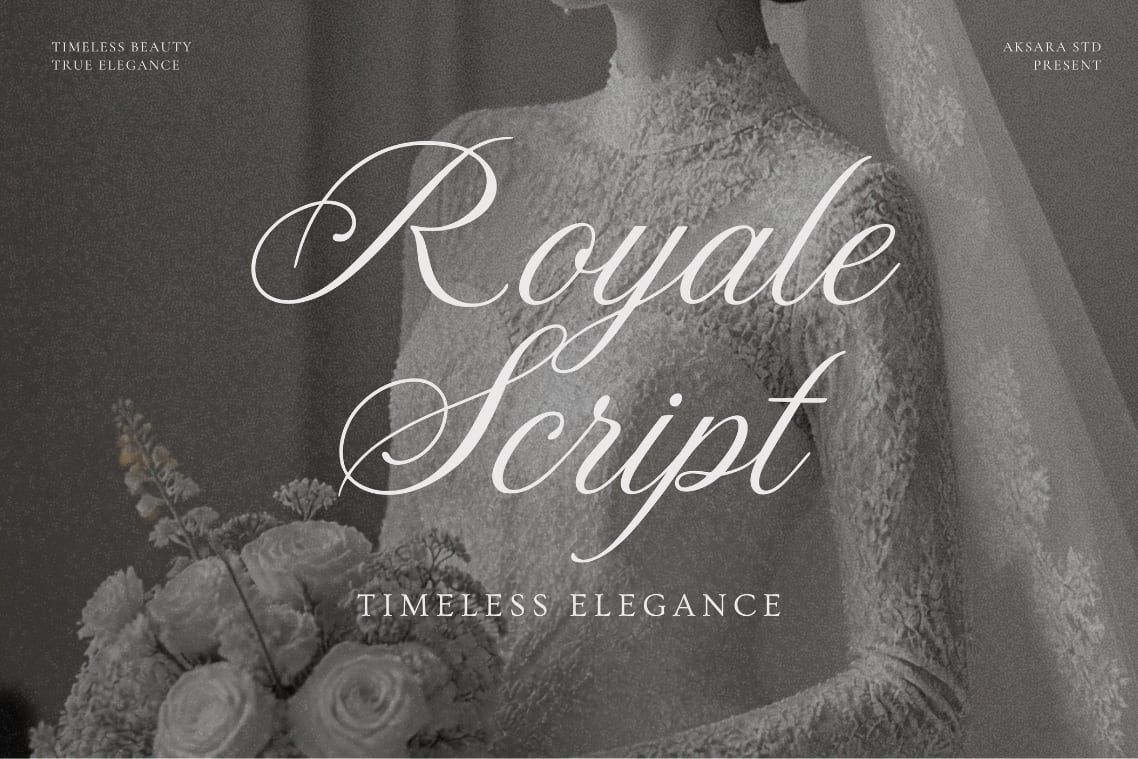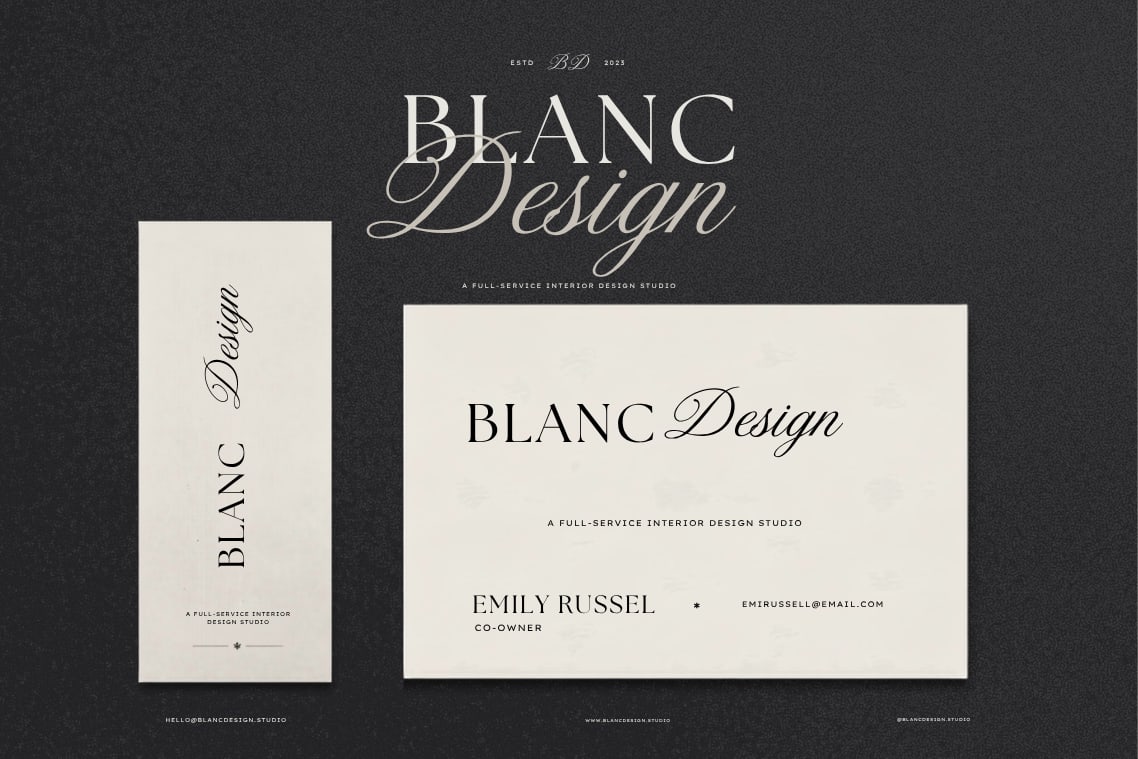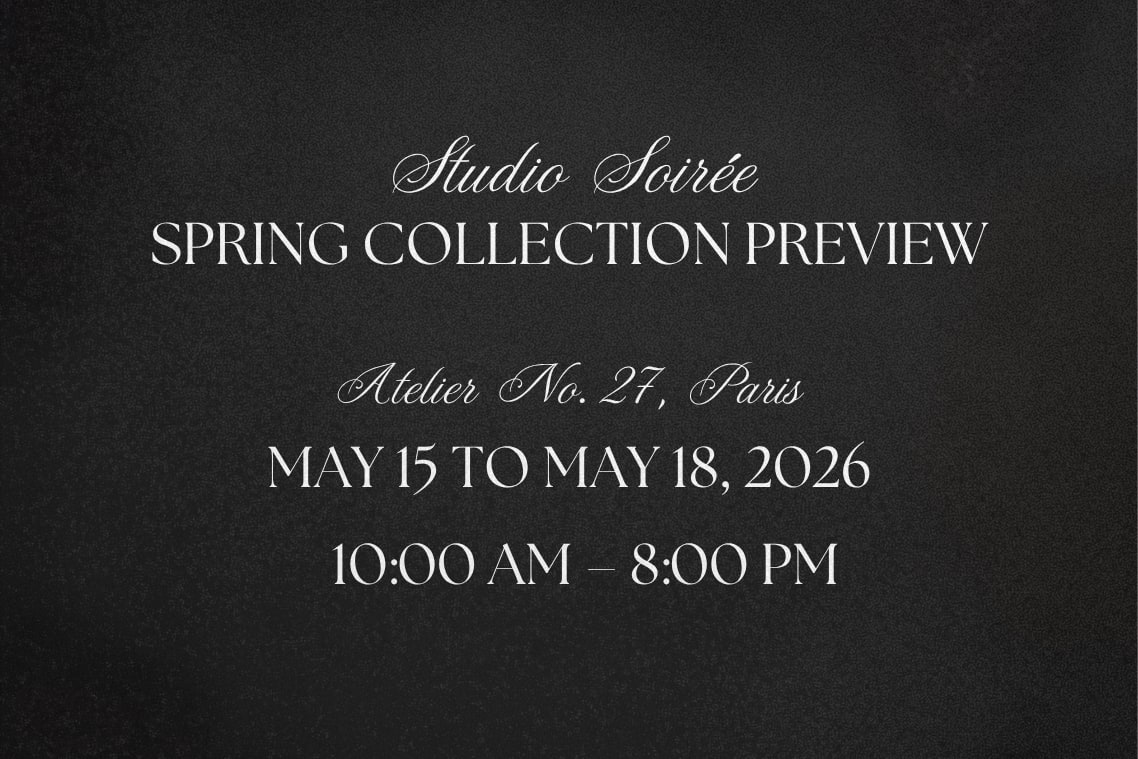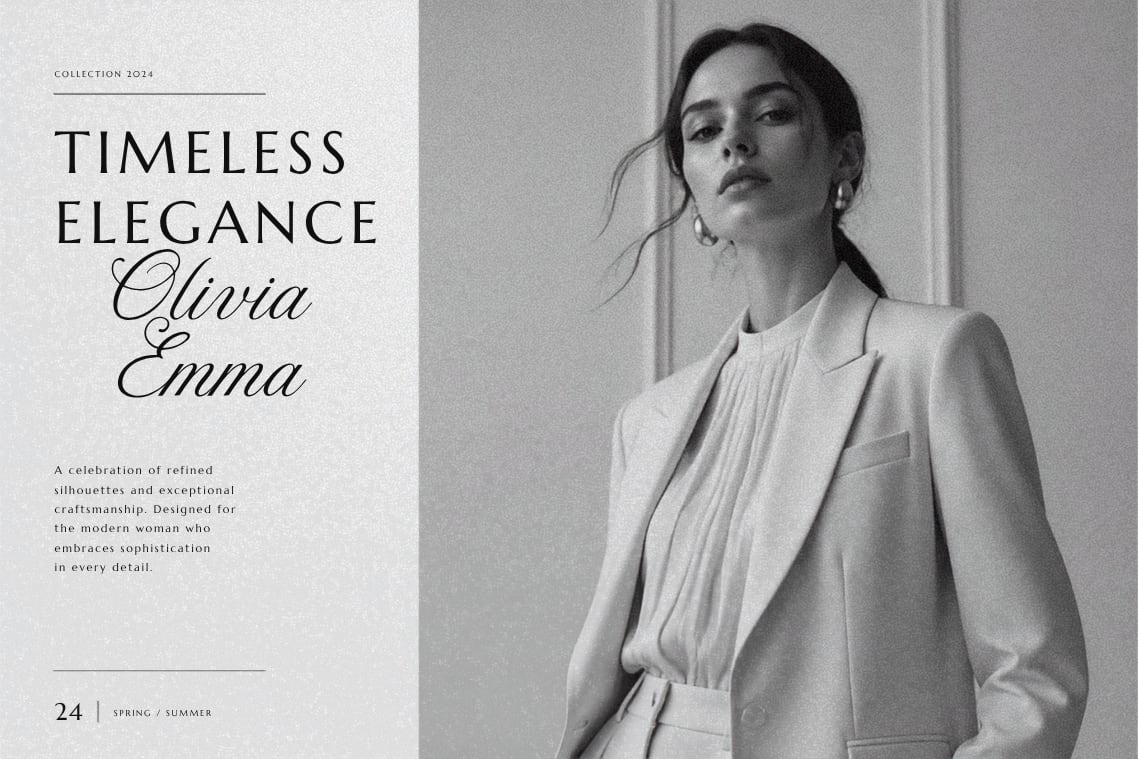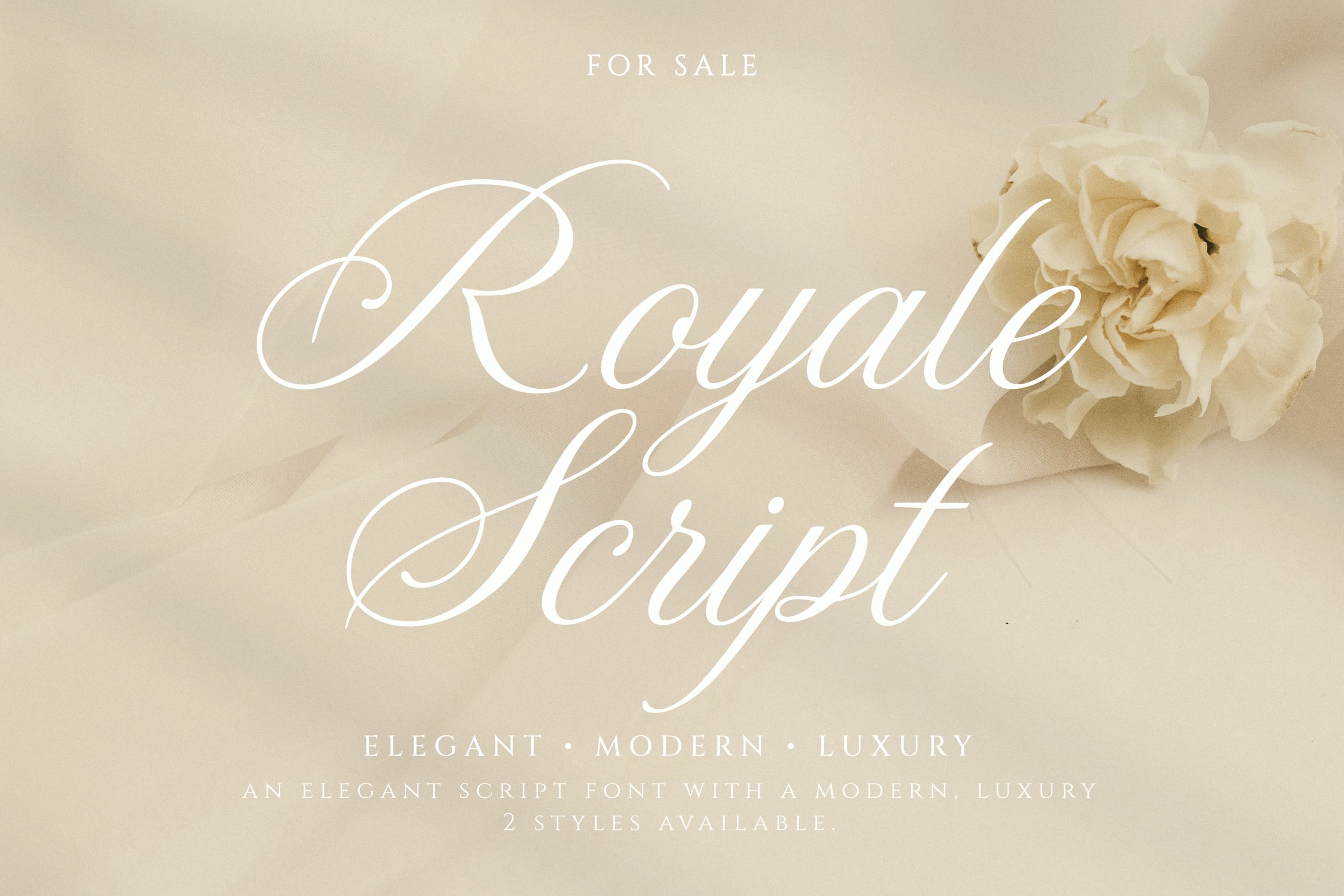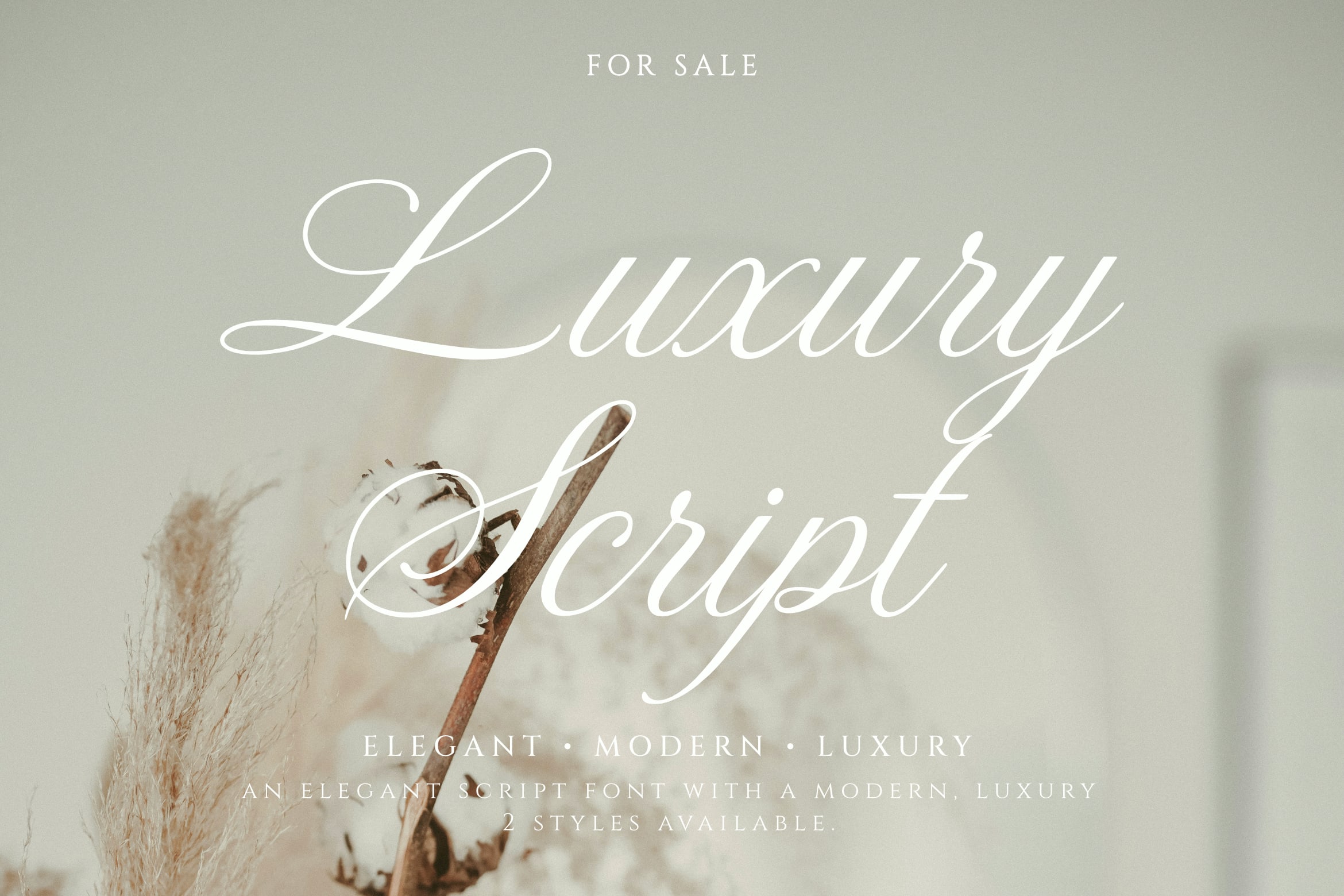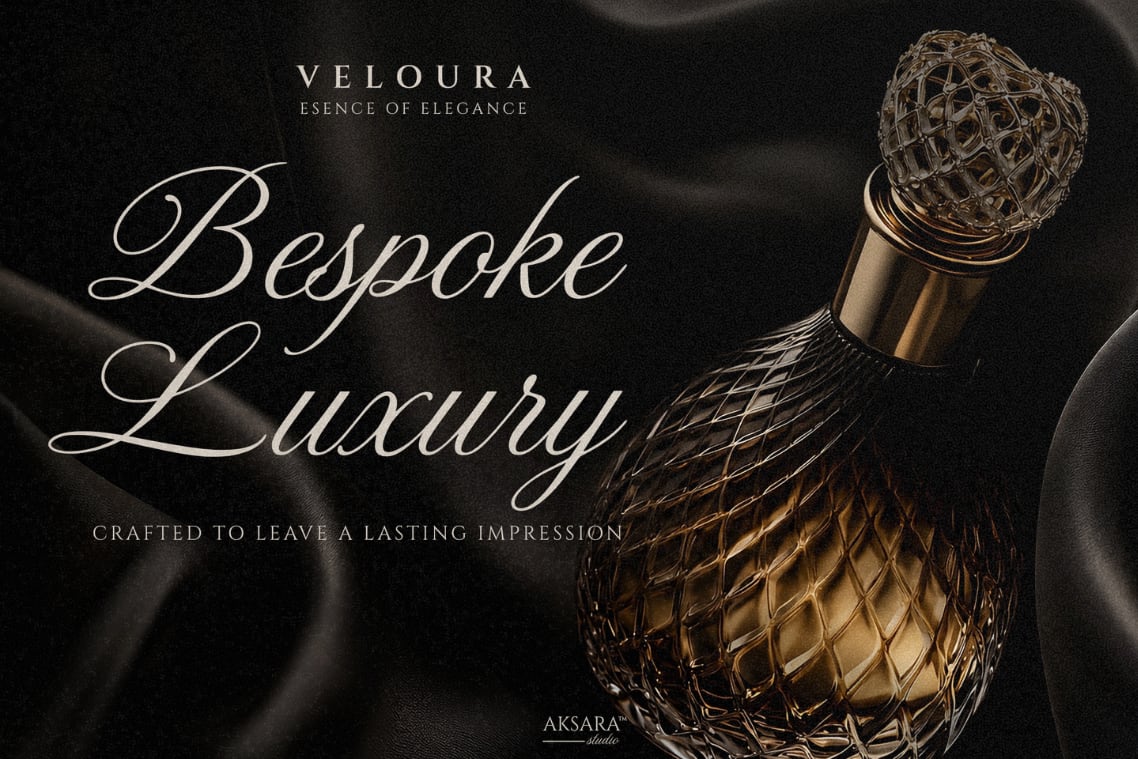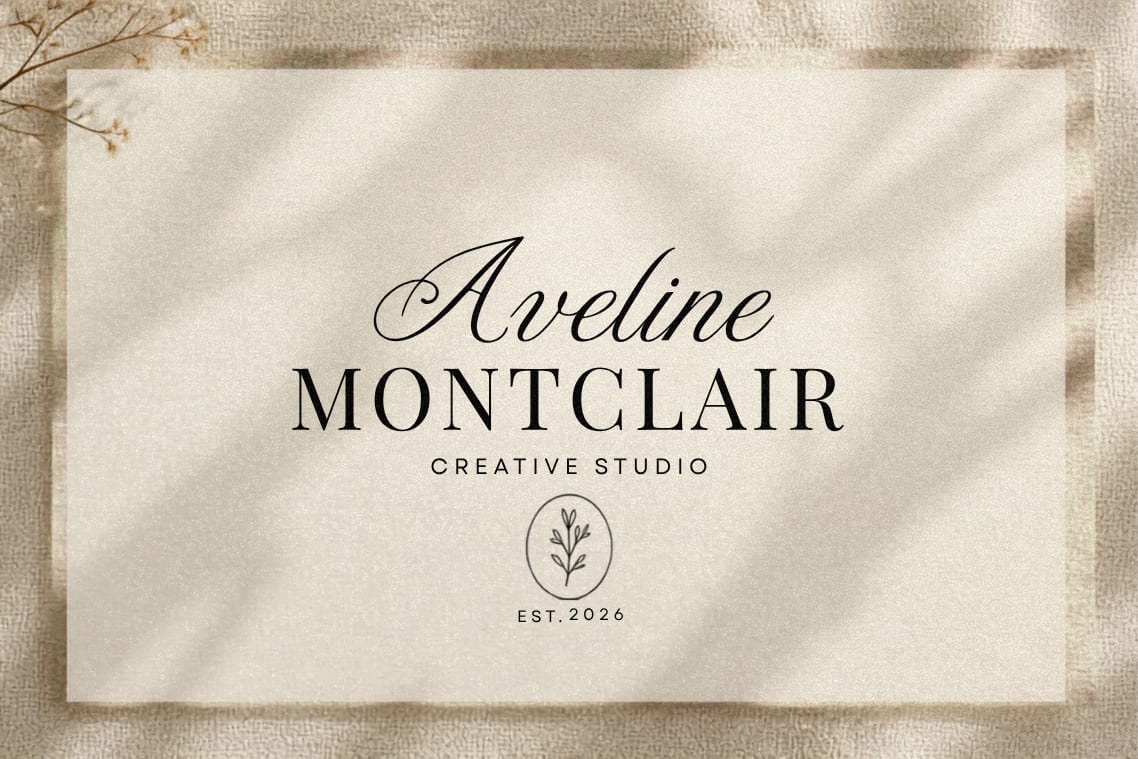
Perfect for luxury branding, fashion labels, beauty products, jewelry packaging, wedding stationery, boutique logos, editorial layouts, and premium marketing materials, Royale Script delivers a polished and memorable visual presence. Its sophisticated letterforms create an effortless balance between elegance and modern style, making it ideal for brands that value refinement and distinction.
Alternate Characters
Ligatures & Stylistic Features